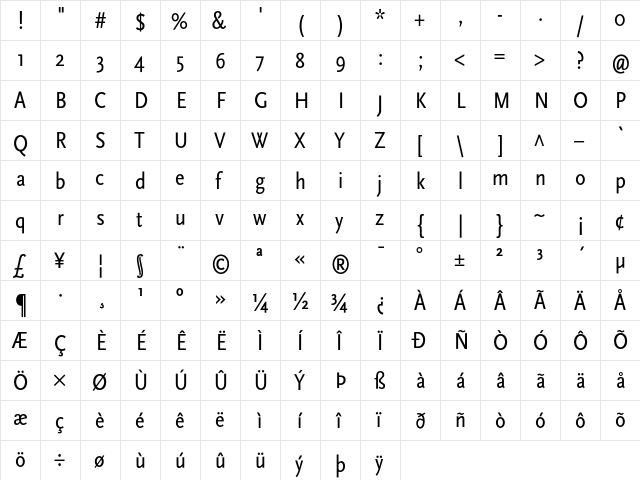
Scala Sans Regular Cn
Design Context for Scala Sans Typeface
Scala Sans is a composed and adaptable typeface that performs quietly and consistently across a wide range of design contexts.
Pro Tip: Pair Scala Sans with a font of contrasting weight or personality to build a more expressive typographic hierarchy.